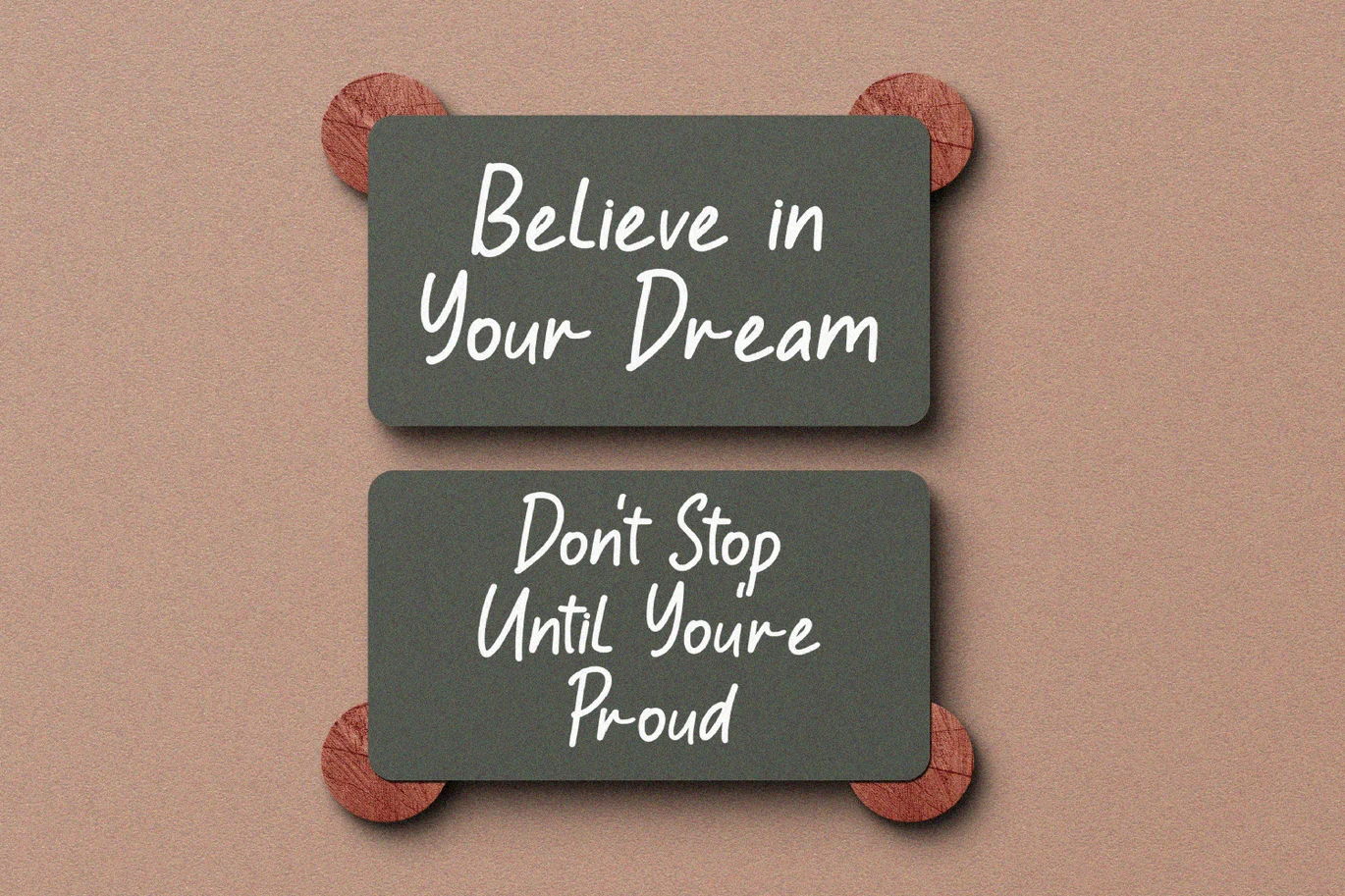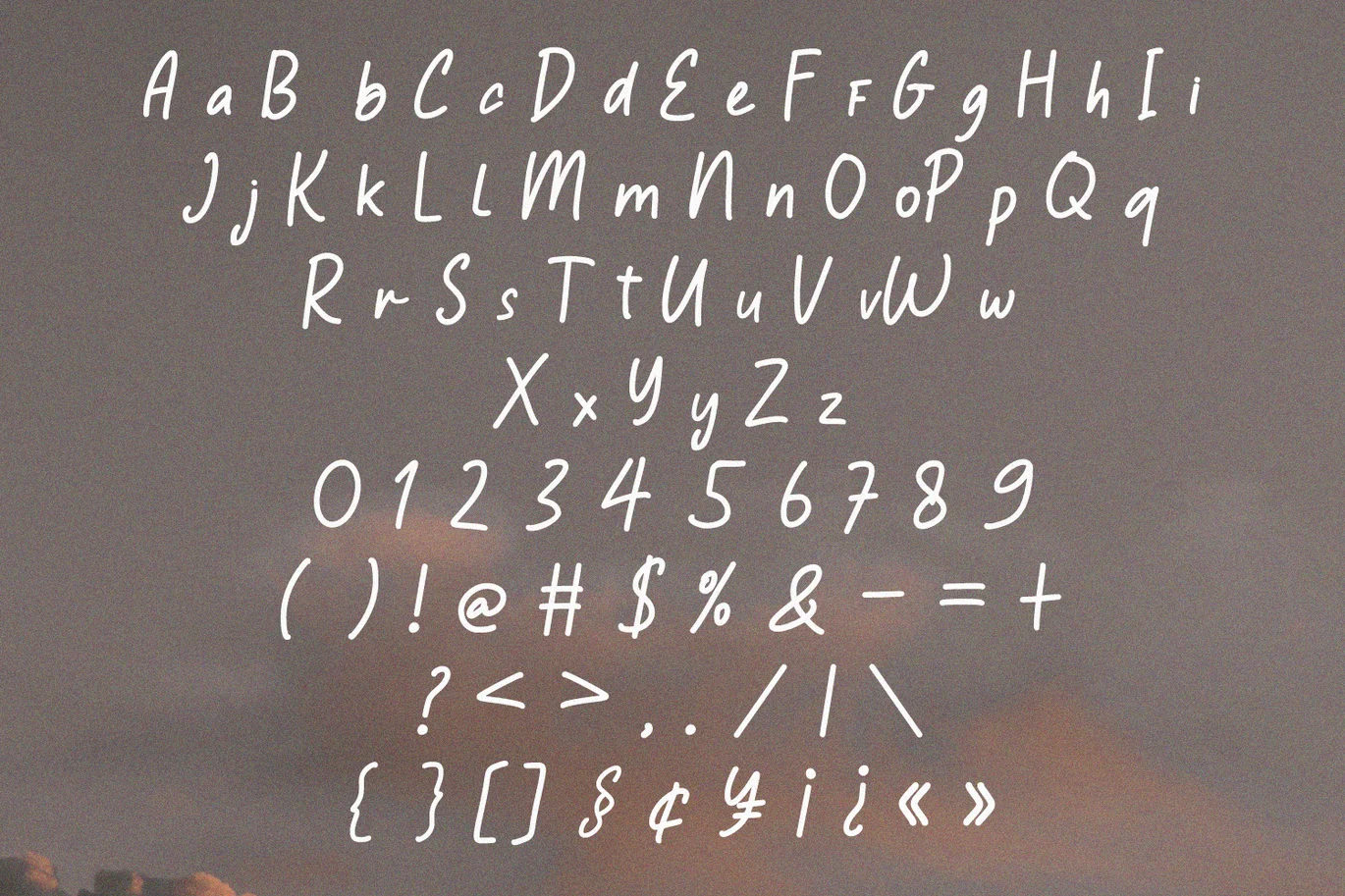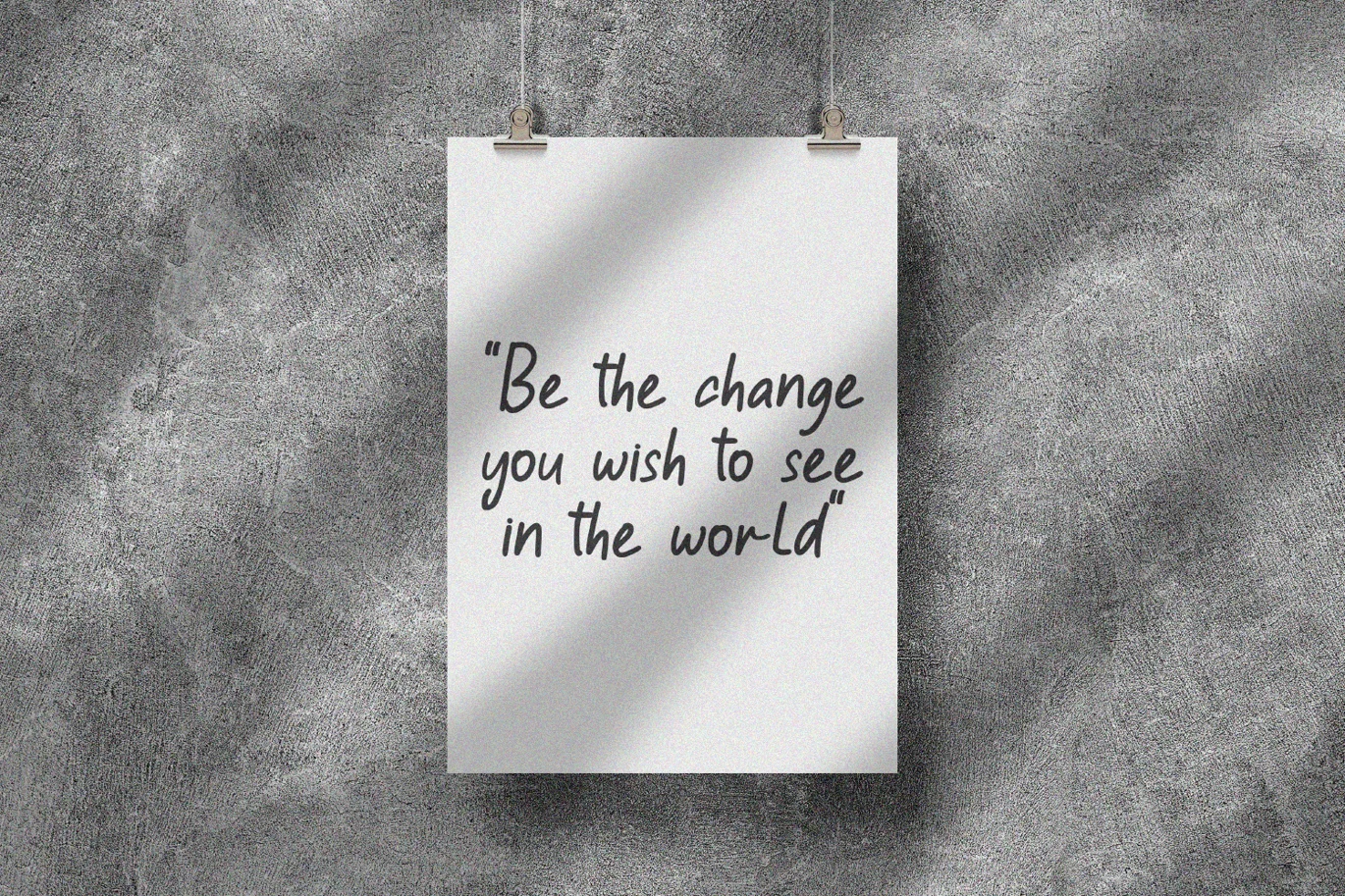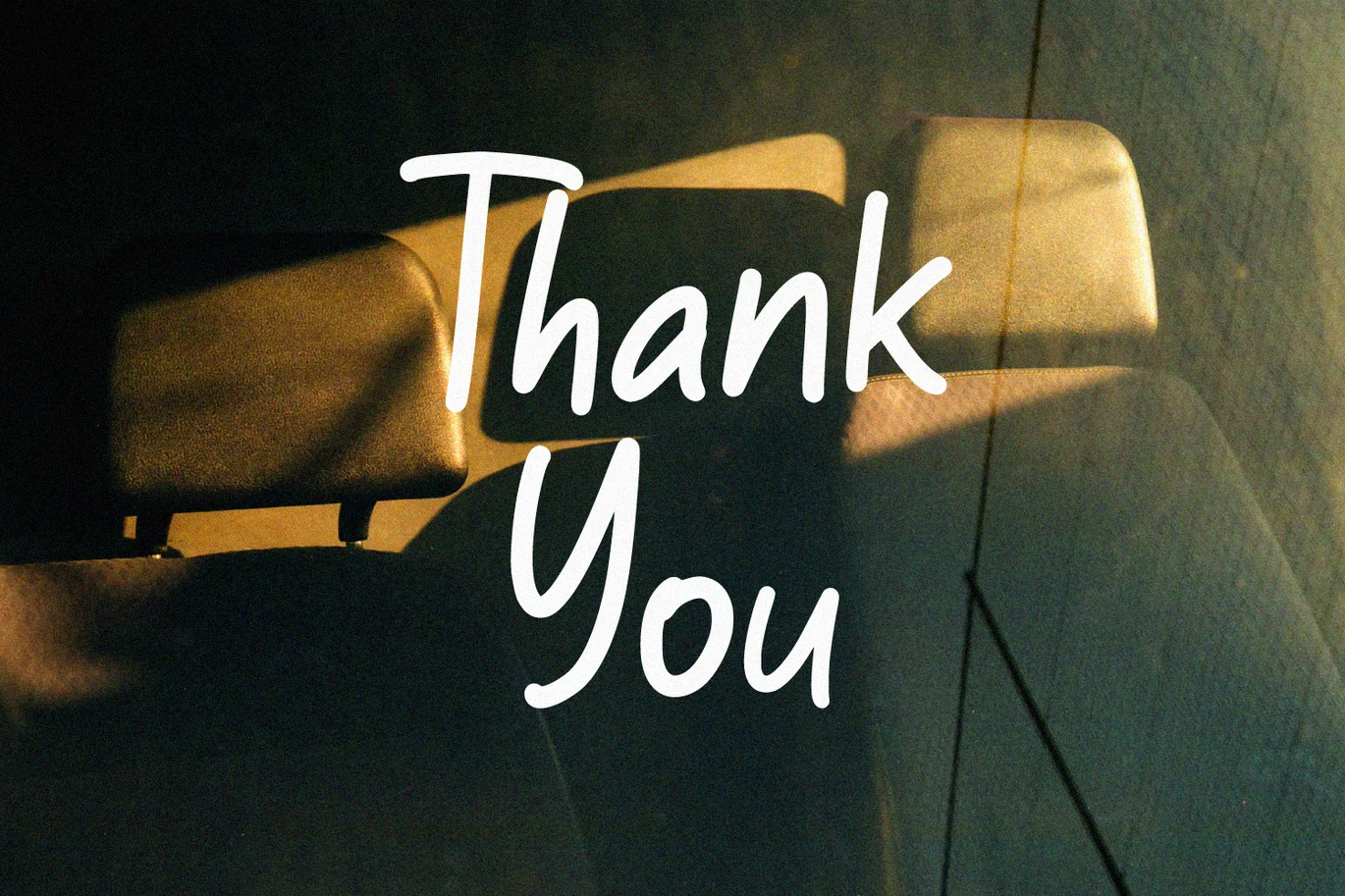
Ridvena is a handwritten font. It has an elegant and playful look that can be used for logos, branding, invitations, stationery, wedding designs, social media posts, and so much more.
FEATURES: Numbering and Punctuations Multilingual Support